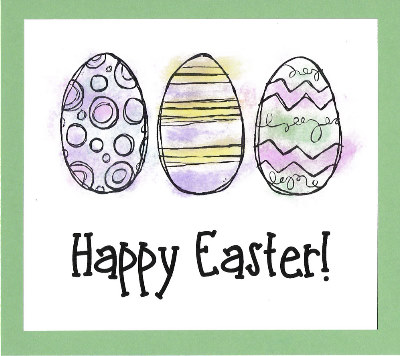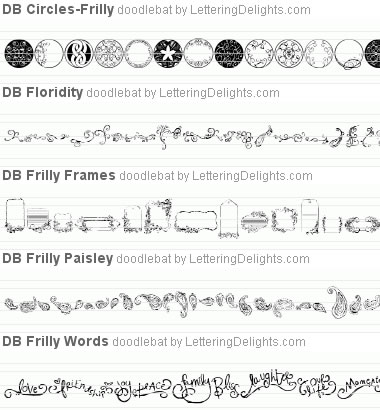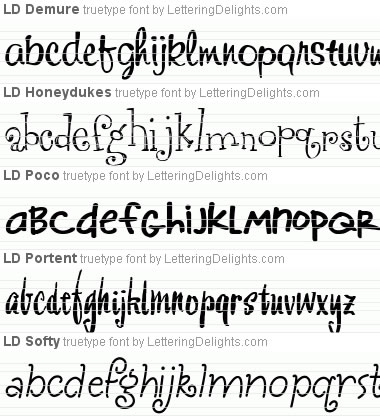
Need a quick card? DoodleBats to the rescue!
In just minutes you can have a personal, handmade card ready
to go for any occasion; even Easter. (It's on Sunday!!)
This card features the DoodleBat
DB Easter Bunny and font LDJ
Jillustrious. A simple
design of three different Easter eggs makes a focal point
to emphasize the holiday greeting. Tip: The 'rule of
odds' for photography and art can be applied to any form
of creative composition including something as simple
as a greeting card. Repeating images in odd number quantities
(i.e. 3, 5, etc.) is more pleasing to the eye.
Believe that anything is possible. Each design comes to life in
an alphabet and JD clipart set, including borders, words & phrases
and clip art images. Just Believe.
Cheryl's Spring is Here Bundle |
Cheryl's homespun style
to a special spring tradition. Each JD Clipart Set includes
corners, tags, title boxes, adornments, toppers and photo
boxes. Celebrate because Spring
Is Here!
Fill your basket with five
all new 'fontastic' fonts. Each unique font has an easy-to-read
style which makes them must-haves for any purpose. In the
Fantastic Font Bundle you'll have the simple boldness of
LD Poco, the subtle swirls of LD Softy, the elegance of
LD Portent, the simple script of LD Demure and disheveled
design of LD Honeydukes.
Frilly DoodleBat Bundle |
With the ease of a font you
can add elegant embellishments to cards, invitations, scrapbook
layouts and more with the new Frilly Doodlebat Bundle.
Choose from a collection of ornamental embellishments including
DB Frilly Paisley, DB Circles – Frilly and DB Floridity.
Add elegant expressions with DB Frilly Words and enhance
photos or create journaling boxes with DB Frilly Frames.